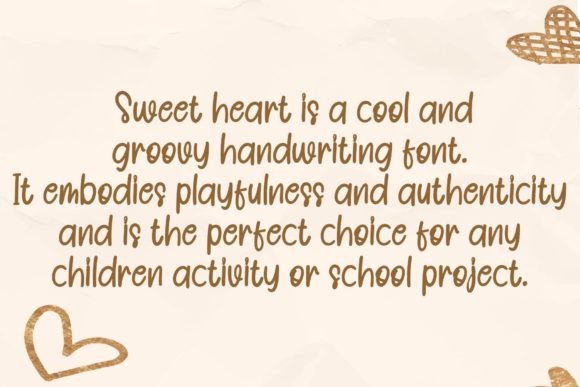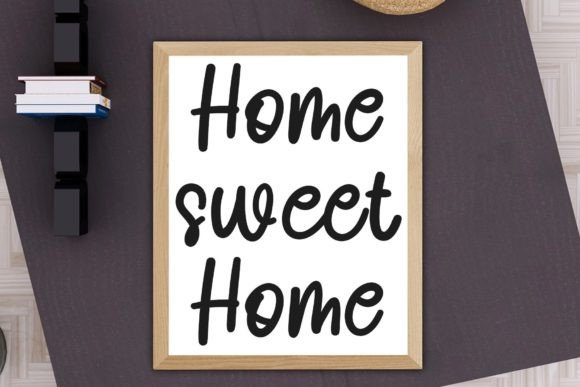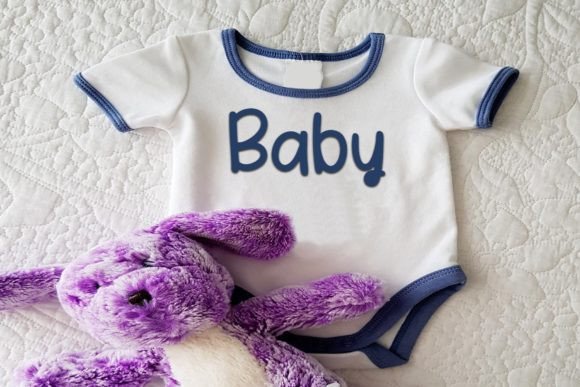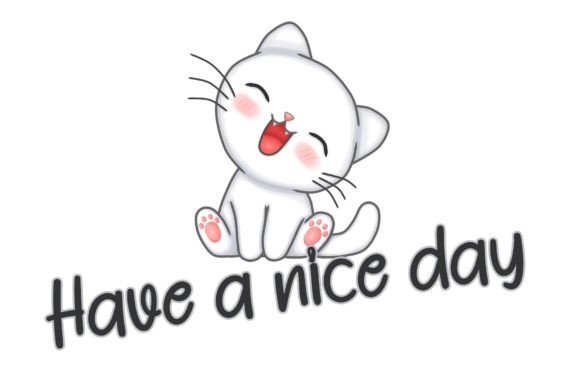
Sweet Heart Font
About Sweet Heart Font
“Sweet Heart: Where Magic Meets Elegance in Handwritten Typography
Introducing Sweet Heart, a magical handwritten font meticulously crafted to infuse elegance into your designs. With its enchanting strokes and graceful curves, this font adds a touch of sophistication to a wide array of creative projects. Whether you’re seeking fonts for Instagram posts or calligraphy scripts for DIY endeavors, Sweet Heart will transform your creative ideas into genuine pieces of art, captivating the eyes and hearts of your audience.
The allure of Sweet Heart lies in its magical essence, where each letter is meticulously shaped to exude an air of enchantment and grace. Its flowing strokes and elegant lines create a visual spectacle, adding a layer of charm and sophistication to your designs. Imagine your Instagram posts adorned with Sweet Heart’s magical script, capturing attention with its spellbinding allure. Picture your DIY projects featuring its graceful letterforms, turning ordinary creations into extraordinary works of art. With Sweet Heart, your designs come to life with a touch of magic, making them visually captivating and emotionally resonant.
One of Sweet Heart’s standout features is its versatility. Its magical design allows it to seamlessly adapt to various applications, from social media graphics to personalized stationery and everything in between. Whether you’re crafting digital artwork, designing wedding invitations, or working on any project that demands an elegant touch, Sweet Heart adds a sense of enchantment and sophistication, making your designs stand out with its timeless allure.
Moreover, Sweet Heart is more than just a font; it’s a transformative tool that elevates your creative expressions. Its magical and elegant demeanor resonates with individuals who appreciate the art of handwritten typography, making it a favorite among designers and enthusiasts seeking a font that exudes charm and mystique. Its presence adds a layer of depth and allure to your designs, making them visually captivating and unforgettable.
In a world where creativity knows no bounds, Sweet Heart helps you make a statement. It speaks the language of magic and elegance, resonating with those who appreciate the beauty of handwritten artistry. Whether you’re designing for social media, special events, or any creative endeavor, Sweet Heart becomes your trusted companion, guiding you toward design excellence.
So, why settle for ordinary when you can embrace the extraordinary with Sweet Heart? Let this magical handwritten font be the muse for your creative expressions, and watch as your projects come to life with elegance, charm, and timeless allure. Let your creativity flow, and let Sweet Heart be the brushstroke that transforms your ideas into visually captivating masterpieces, leaving a lasting impression on the world.”